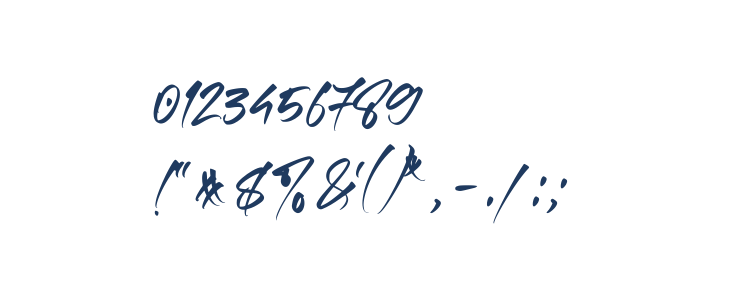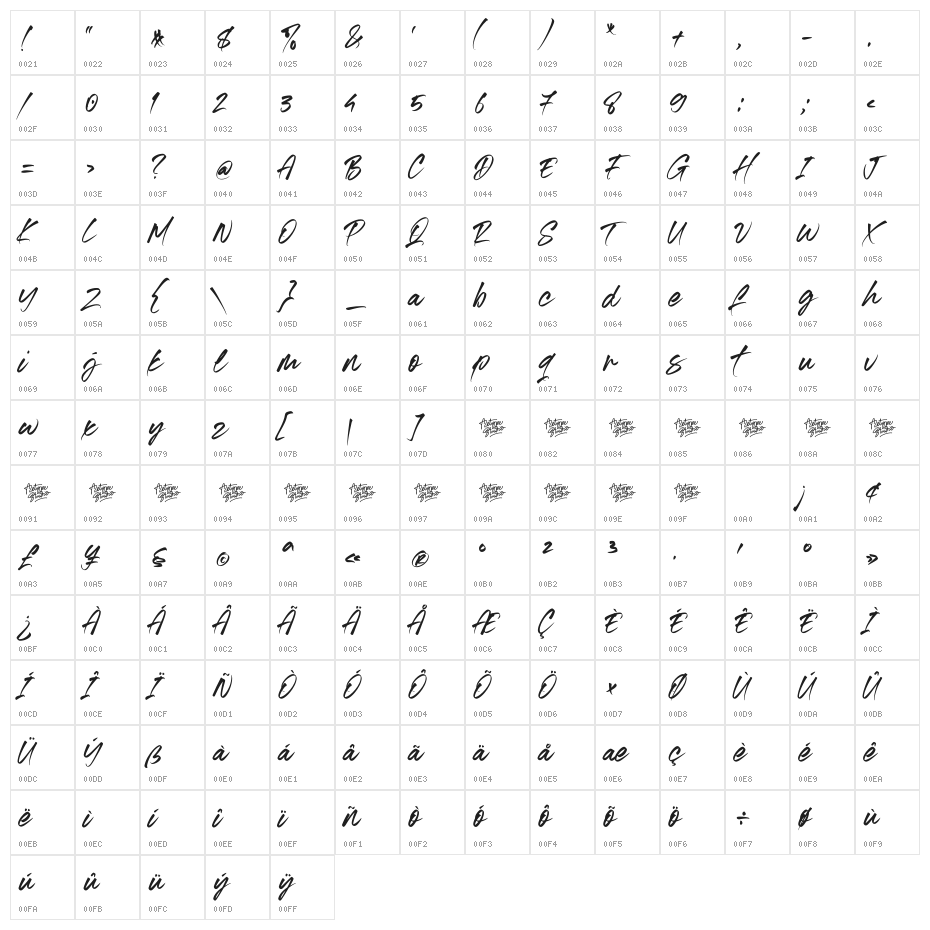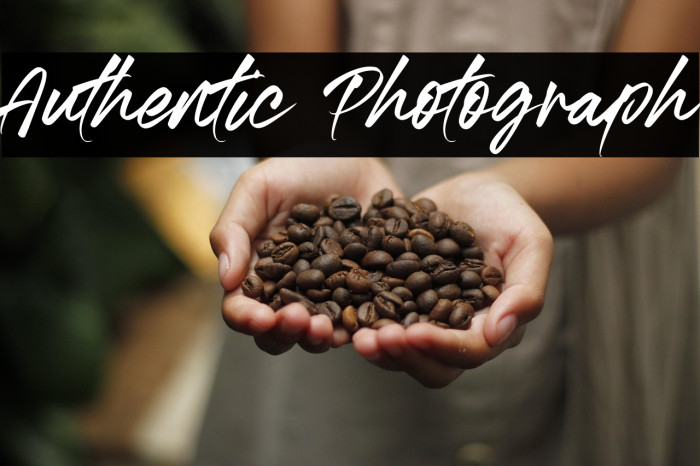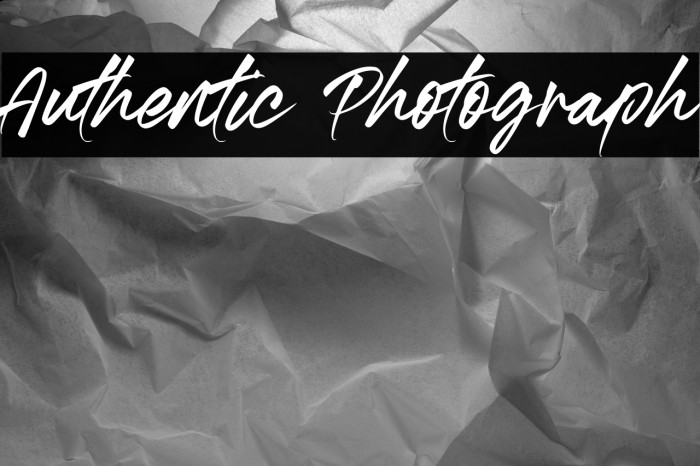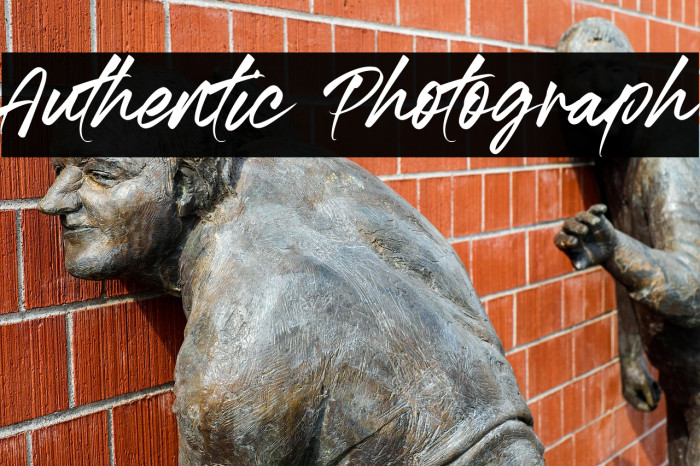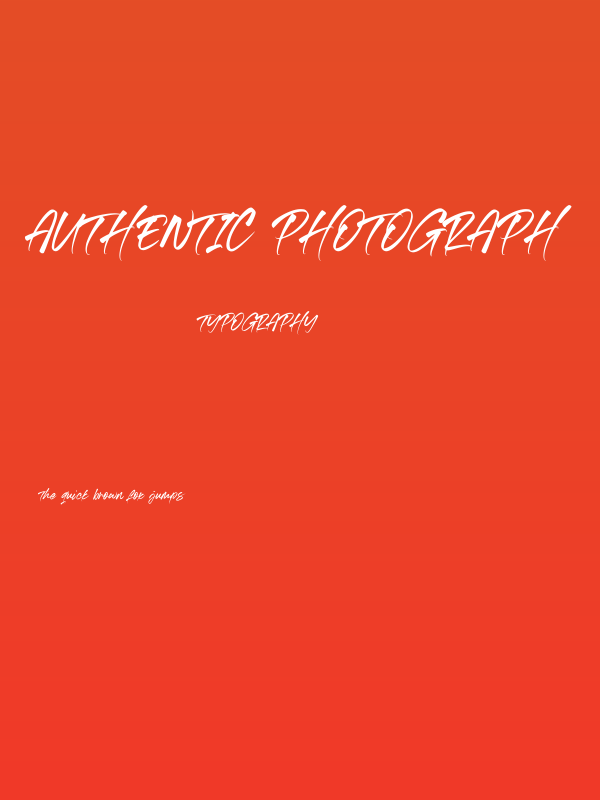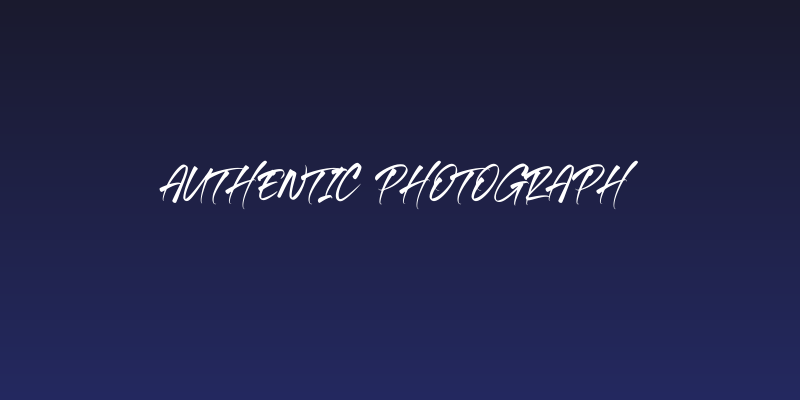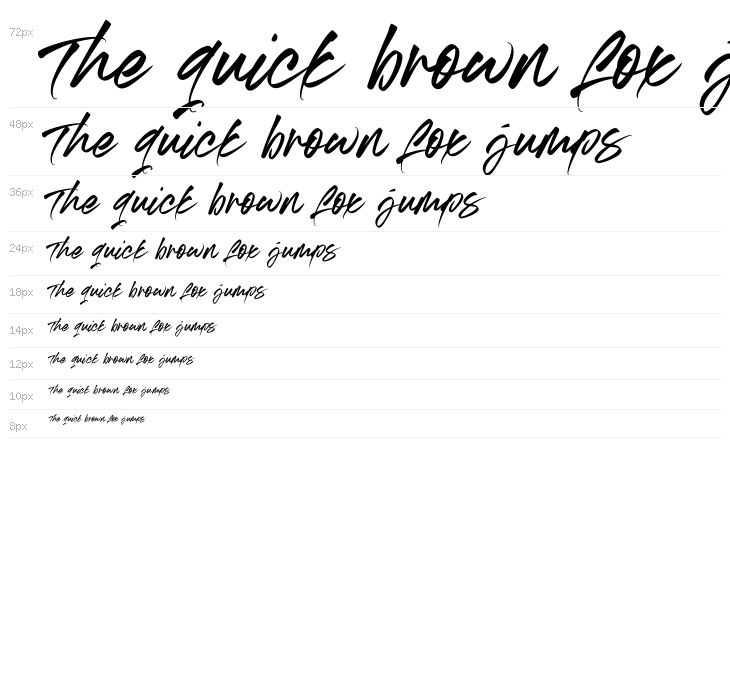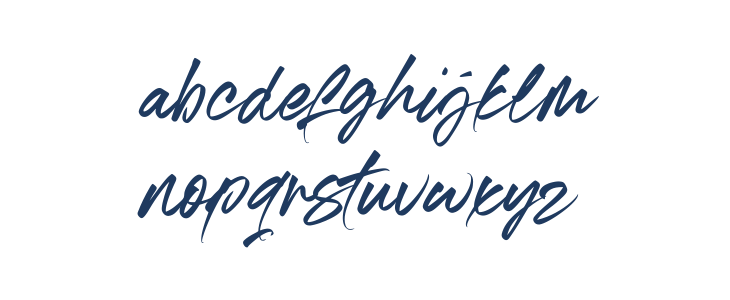
Authentic Photograph Font
Authentic Photograph Description
This font exudes a dynamic and expressive style, characterized by its fluid, cursive strokes that mimic the natural flow of handwriting. The letters are interconnected, creating a seamless and elegant appearance. The uppercase letters are bold and prominent, while the lowercase letters maintain a consistent rhythm, enhancing readability. The numerals and special characters are crafted with the same attention to detail, ensuring a cohesive look across all elements. This font's energetic and artistic flair makes it ideal for projects that require a personal touch.